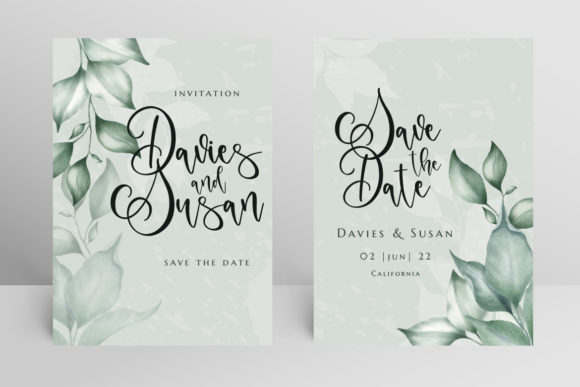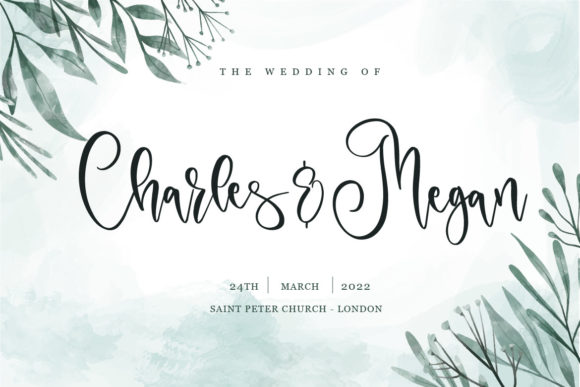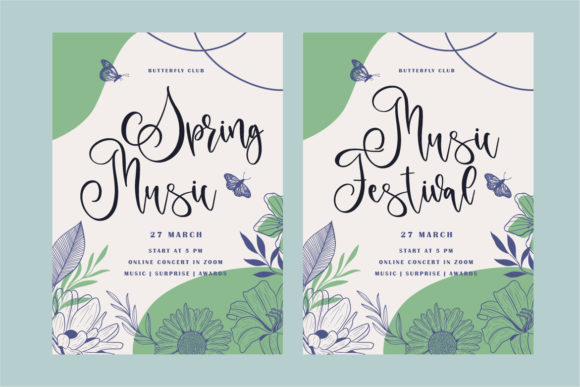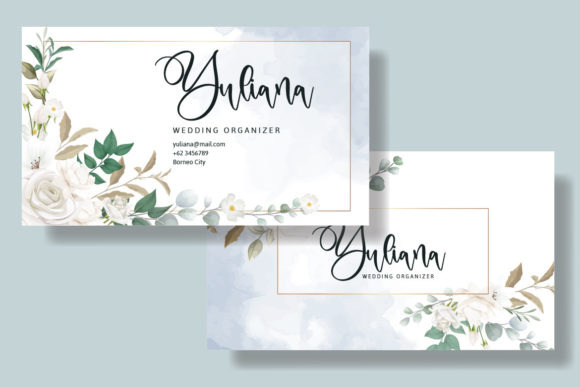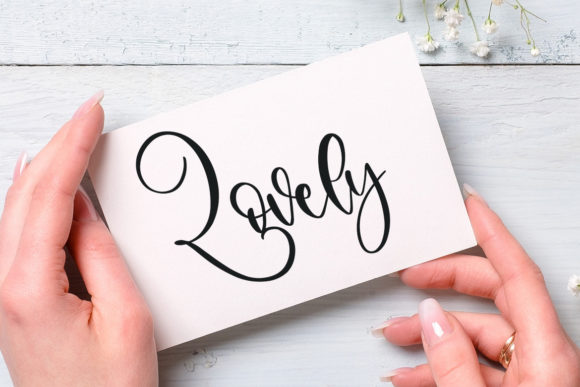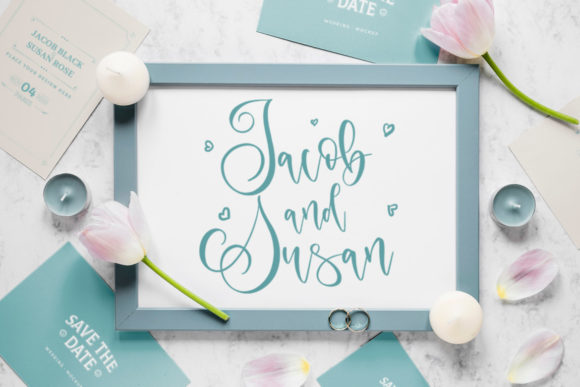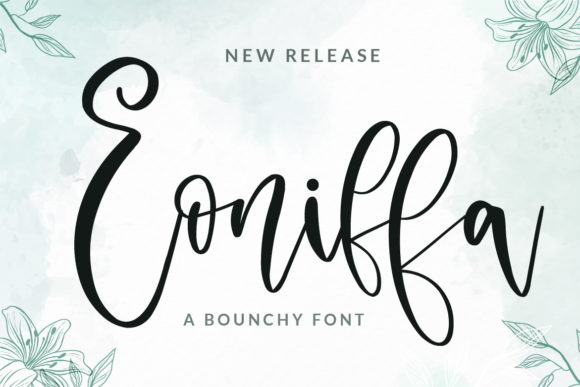
Eoniffa Font: Elevate Your Designs with Elegance and Class
In the world of typography, a font can make or break the aesthetic of a design. For those seeking a touch of elegance and sophistication, Eoniffa Font is an exquisite choice. This lovely and delicate script font is specifically crafted for designers, crafters, and anyone looking to add a refreshing look to their creations.
The Essence of Eoniffa Font
Eoniffa is more than just a font; it’s a statement piece. Its elegant strokes and delicate curves are designed to bring a sense of refinement and luxury to any project. Whether you’re working on a branding campaign, a wedding invitation, or a packaging design, Eoniffa Font is sure to impress. Its unique charm and character make it an excellent choice for those who want to stand out from the crowd.
Key Features of Eoniffa Font
- Delicate Script Style: Eoniffa boasts a beautiful, hand-crafted script style that exudes elegance and poise.
- Elegant Strokes: The font features smooth, flowing strokes that add a touch of sophistication to any design.
- Refreshing Look: Eoniffa’s unique design ensures that your projects will have a fresh and modern appearance.
- High Versatility: This font is suitable for a wide range of design applications, from branding and advertising to packaging and editorial design.
Who Can Benefit from Eoniffa Font?
Eoniffa Font is an excellent choice for a variety of designers and crafters, including:
- Graphic Designers: Looking for a sophisticated font to elevate their branding and advertising projects.
- Wedding Planners and Stylists: Seeking a beautiful and elegant font for wedding invitations, stationery, and decorations.
- Packaging Designers: Needing a font that can add a touch of luxury and refinement to product packaging.
- DIY Crafters: Creating handmade cards, scrapbooking, and other paper crafts that require a personal touch.
Tips for Using Eoniffa Font Effectively
To get the most out of Eoniffa Font, consider the following tips:
- Pair with Neutral Colors: Eoniffa’s elegance shines best when paired with neutral colors like white, beige, or soft pastels.
- Use for Headlines and Titles: The font’s delicate style makes it perfect for headlines and titles, adding a touch of sophistication to your designs.
- Experiment with Ligatures: Eoniffa Font features beautiful ligatures that can add an extra layer of elegance to your text.
Eoniffa Font is a beautiful and refreshing script font that can elevate your designs with its elegance and class. Its delicate strokes, elegant curves, and high versatility make it an excellent choice for designers, crafters, and anyone looking to add a touch of sophistication to their projects. Whether you’re working on a professional design or a personal craft, Eoniffa Font is sure to impress.